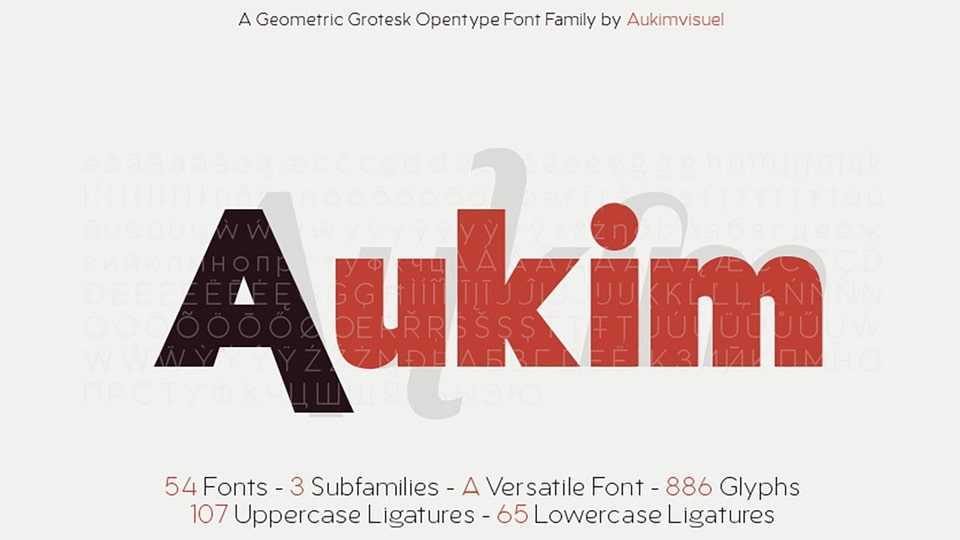
Download Aukim font, an exceptional, unique and ligature-rich typeface that gives a new look to your texts. Aukim is a more text-oriented font and thanks to its OpenType features, it becomes versatile.